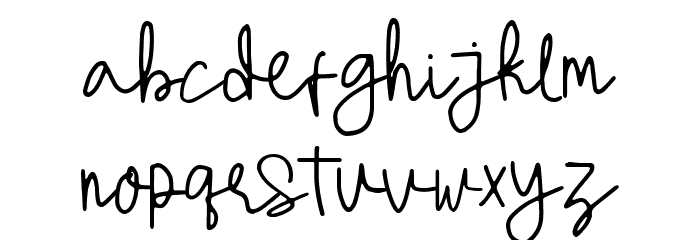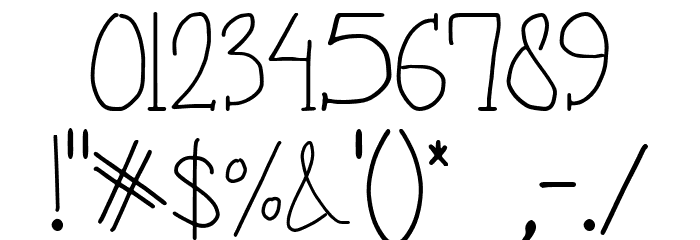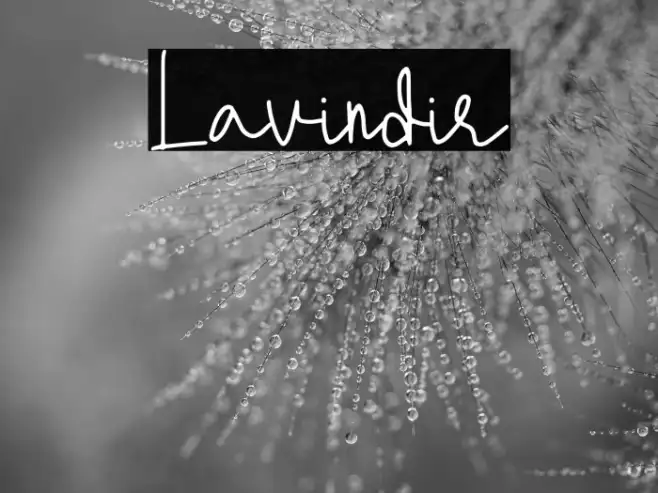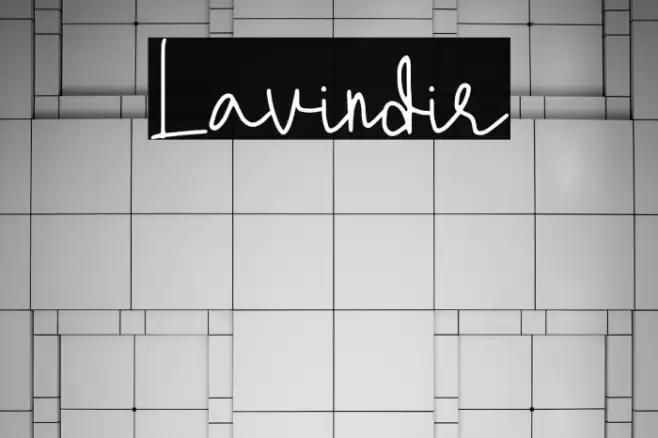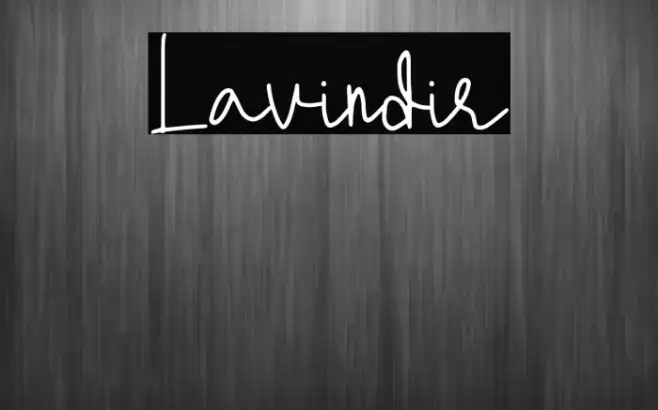
Lavindir Font
This font features a playful and casual handwritten style, characterized by its flowing and slightly irregular letterforms. The uppercase letters are tall and slender, with a whimsical touch that adds personality to each character. The lowercase letters maintain a consistent flow, enhancing the font's informal and approachable appearance. Numbers and special characters are crafted with the same playful spirit, ensuring a cohesive look across all text elements. The overall design is both modern and friendly, making it suitable for a variety of creative projects.
A playful and casual handwritten font with flowing, irregular letterforms.
- Proposed Projects: Ideal for greeting cards, invitations, personal branding, and social media graphics.
- Overall Style: Casual, Playful
- Use Case: Headlines, Logos, Informal Text